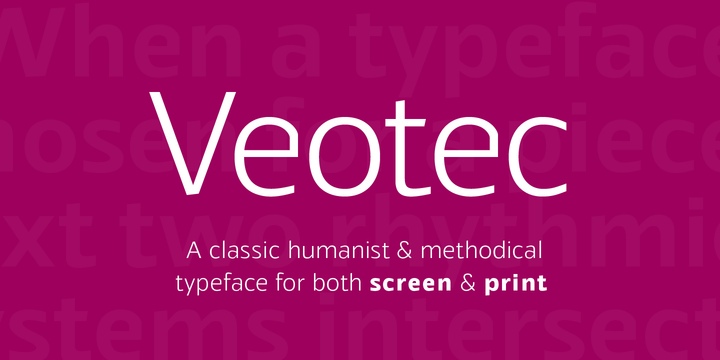
Veotec Font
Veotec Font is perfect for technology startup branding, software development company logos, digital innovation presentations, cybersecurity firm materials, artificial intelligence research graphics, tech conference signage, modern electronics packaging, scientific research publications, data visualization interfaces, and cutting-edge engineering documentation. This sophisticated typeface excels in applications where technological precision, digital innovation, and scientific advancement are core brand messaging elements.
What makes Veotec Font exciting is its seamless fusion of geometric precision with subtle technological flourishes that perfectly embodies the intersection of science and digital innovation. The font features systematically engineered letterforms with strategic angular details and optimized proportions that create an immediate sense of technical competence and forward-thinking design philosophy. Its clean architecture and contemporary character make it ideal for brands that need to communicate complex technological concepts while maintaining accessibility for diverse professional audiences.
The Veotec Font family typically includes comprehensive weight options from Light to Bold, often featuring condensed variations and technical alternates that accommodate specialized scientific and engineering applications. Many versions include extended character sets with mathematical symbols, scientific notation marks, coding characters, and technical operators essential for research documentation. Some collections feature monospaced variations and specialized ligatures that optimize readability in technical environments and data-heavy presentations.
Whether you're developing brand identities for technology companies, creating educational materials for scientific institutions, or designing interfaces for advanced software applications, Veotec Font Free Download delivers the technical sophistication that innovation-focused organizations demand. Its authoritative yet approachable character makes it perfect for businesses that need to project expertise while remaining accessible to both technical professionals and general audiences. The font's ability to convey both cutting-edge innovation and reliable professionalism makes it particularly valuable for research institutions, technology consultancies, and scientific organizations seeking to establish credibility while communicating complex ideas through clear, systematic visual communications that inspire confidence in their technical capabilities.